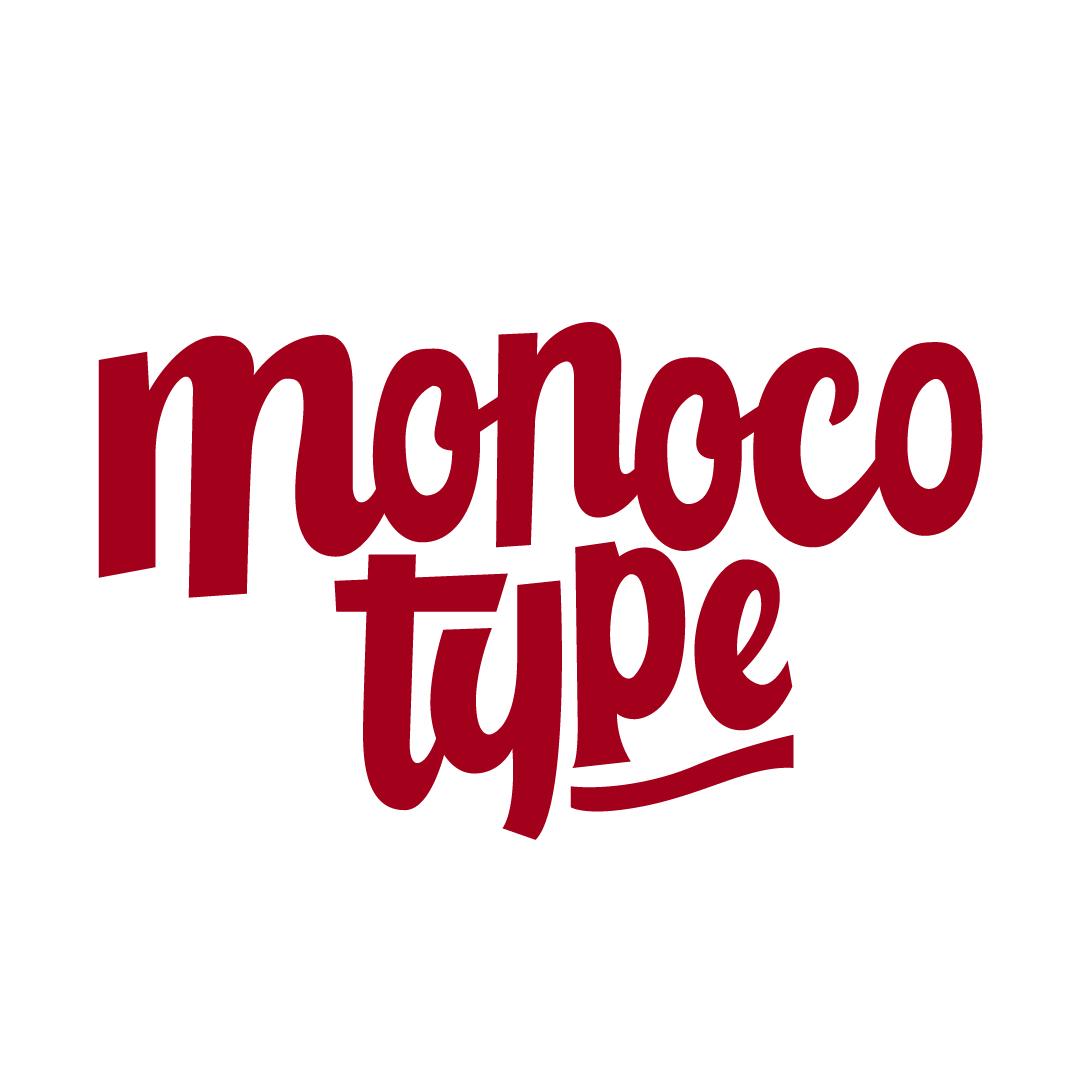
Cottage Sans Font Description
The Cottage Sans is an elegant sans serif, inspired by a 1950’s style.
It’s suitable for logos, greeting cards, quotes, posters, branding, name cards, stationary, design titles, blog headers, art quotes, typography, and much more!